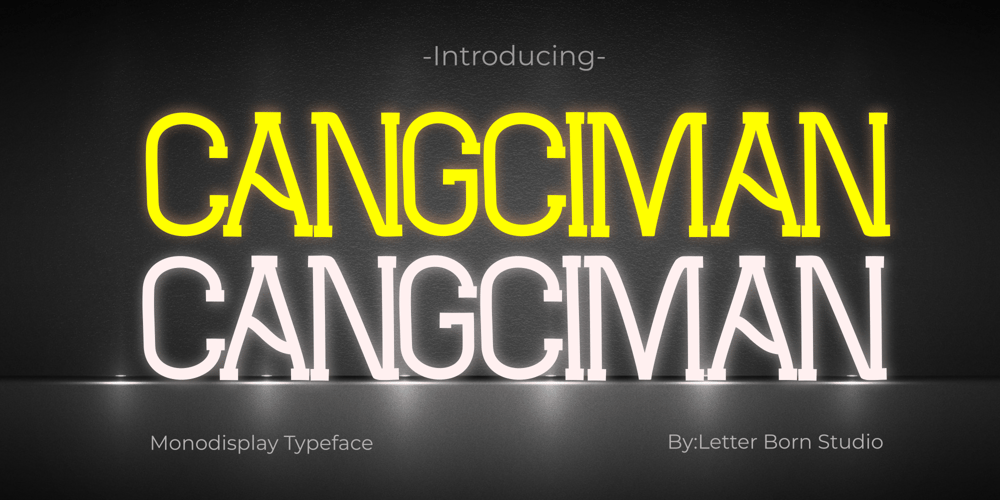
Cangciman
Cangciman font
Cangciman Font Family was designed by Firman Satrio and published by Letter Born Studio. Cangciman contains 1 styles and family package options. Cangciman is a modern monospaced font with a unique touch that combines a bold and elegant feel. Designed for optimal readability, this font is perfect for various purposes, from web design to app interfaces. With clean, proportional lines, Cangciman creates a professional yet warm impression. The perfect choice for those looking for a stylish, functional, and easy-to-read monospaced font.